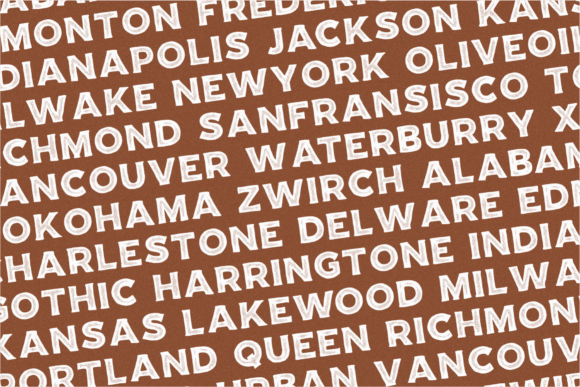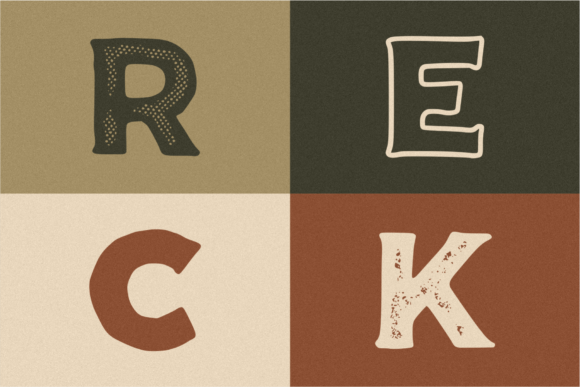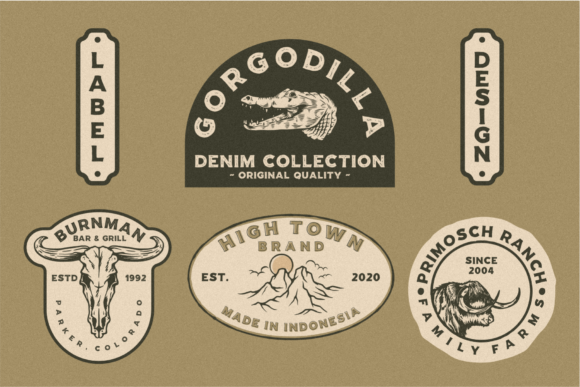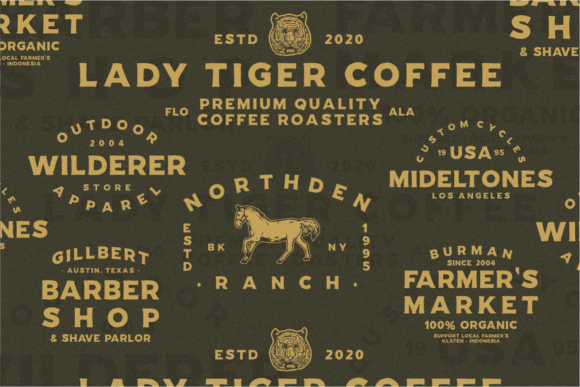
Reckfield Font – Free Download
Introduction to Reckfield Font
Reckfield is a hand-drawn display font.
It delivers a nostalgic vintage feel and it comes packed in 4 amazing styles: regular, dot, texture and outline Combine these styles and take your designs to the next level.
Key Features of Reckfield Font